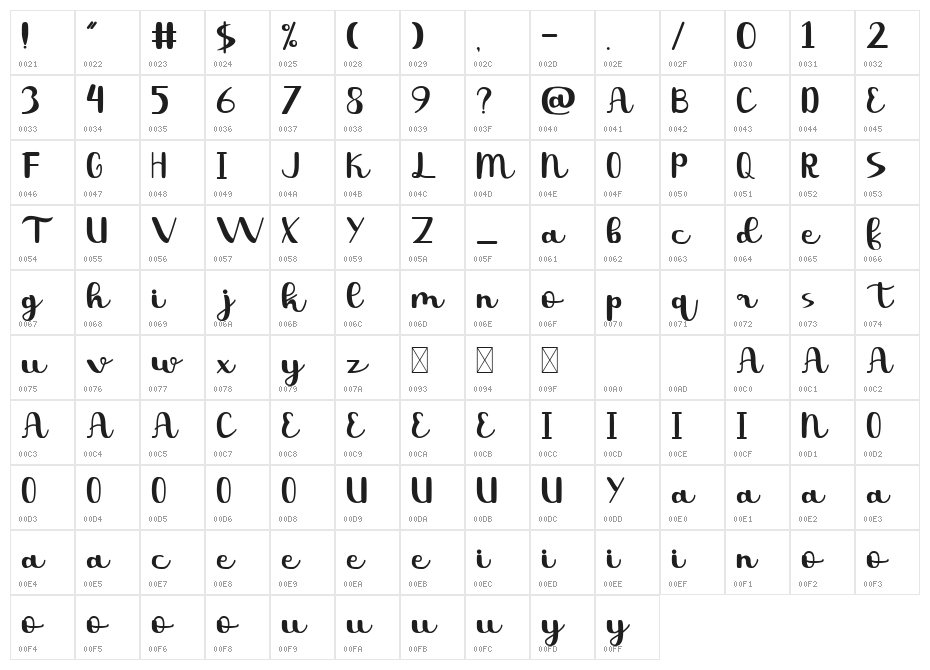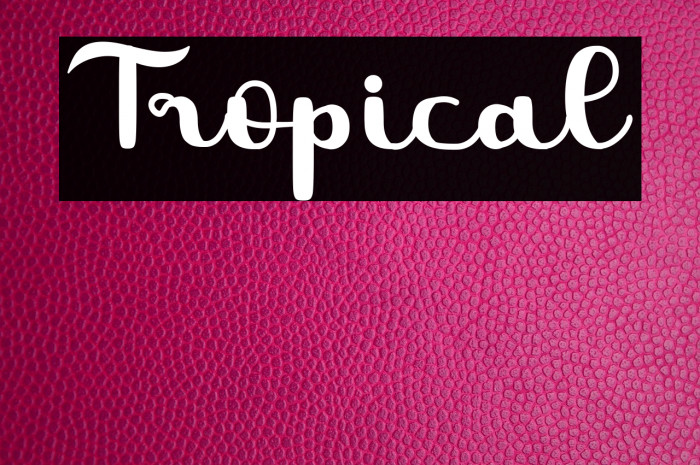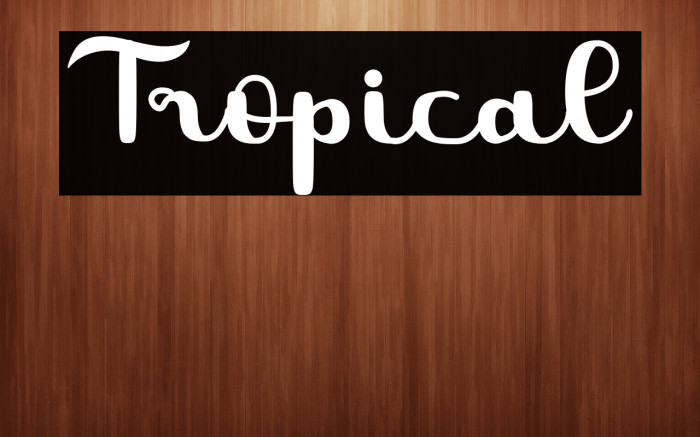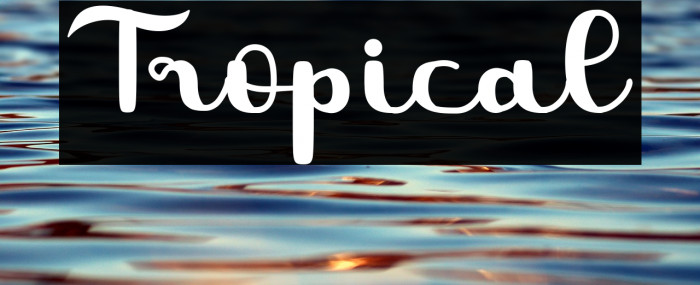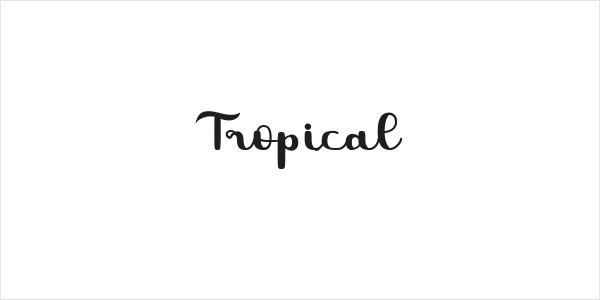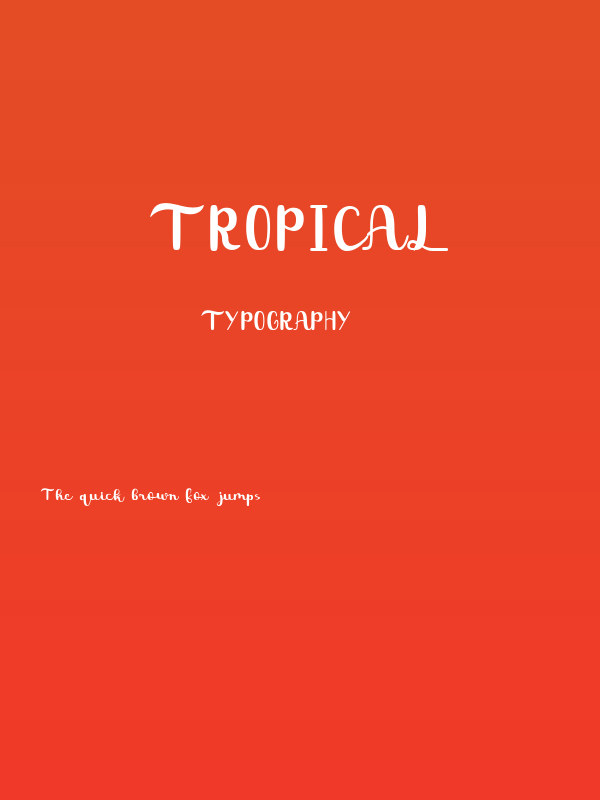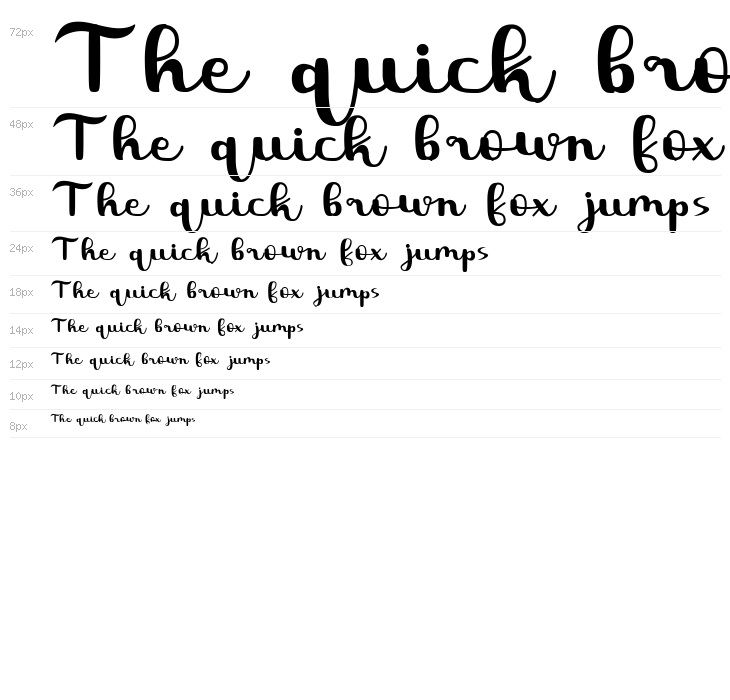
Tropical Font
Tropical Description
This font features a playful and whimsical script style with a hand-drawn appearance. The uppercase letters are bold and slightly irregular, giving a lively and dynamic feel. The lowercase letters maintain a consistent flow with smooth, rounded curves, enhancing the font's friendly and approachable nature. The numerals are distinct and easy to read, while the special characters add a touch of personality with their unique shapes. Overall, this font exudes a sense of fun and creativity, making it ideal for projects that require a personal touch.